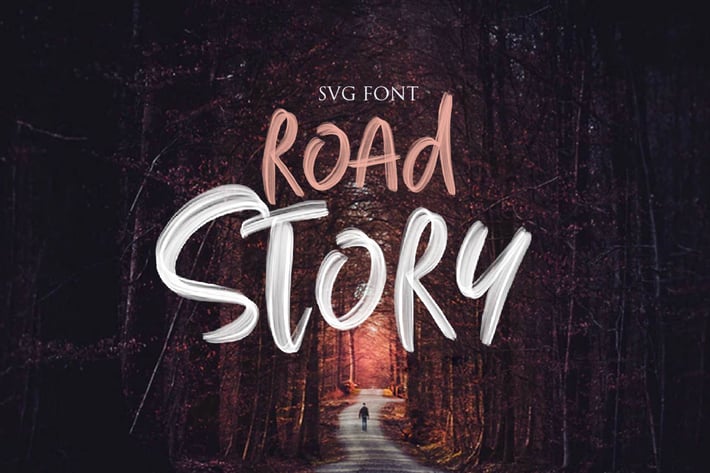
ROAD STORY - SVG FONT
Proudly presents our latest product RoadStory - SVG FONT.
I hope you are interested in this font,The fonts are great for product logo,wedding card logo,
Banner, Graphic design, clothing brand logo, and much more.
RoadStory - SVG FONT equipped with :
- Uppercase,
- lowercase
- numeral
- punctuation
- Symbol
- International Glyphs
- Stylistic alternates
- Stylistic Set
- Swash